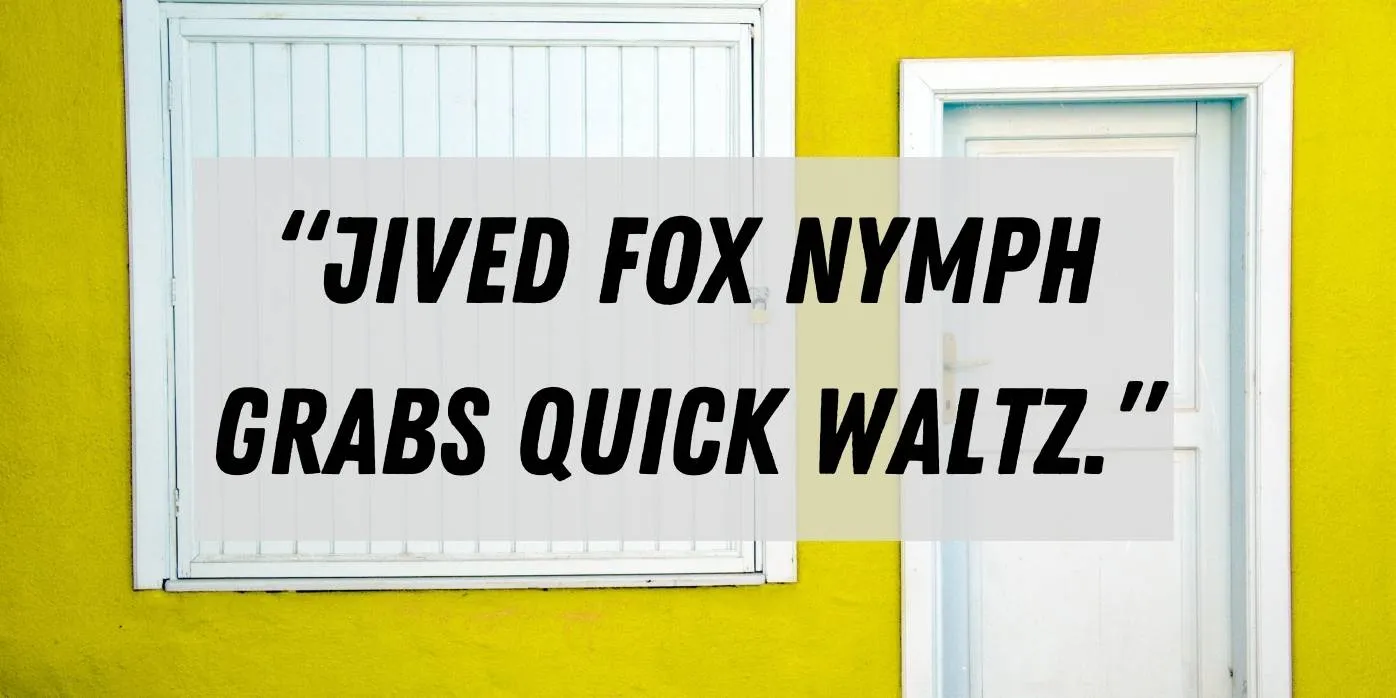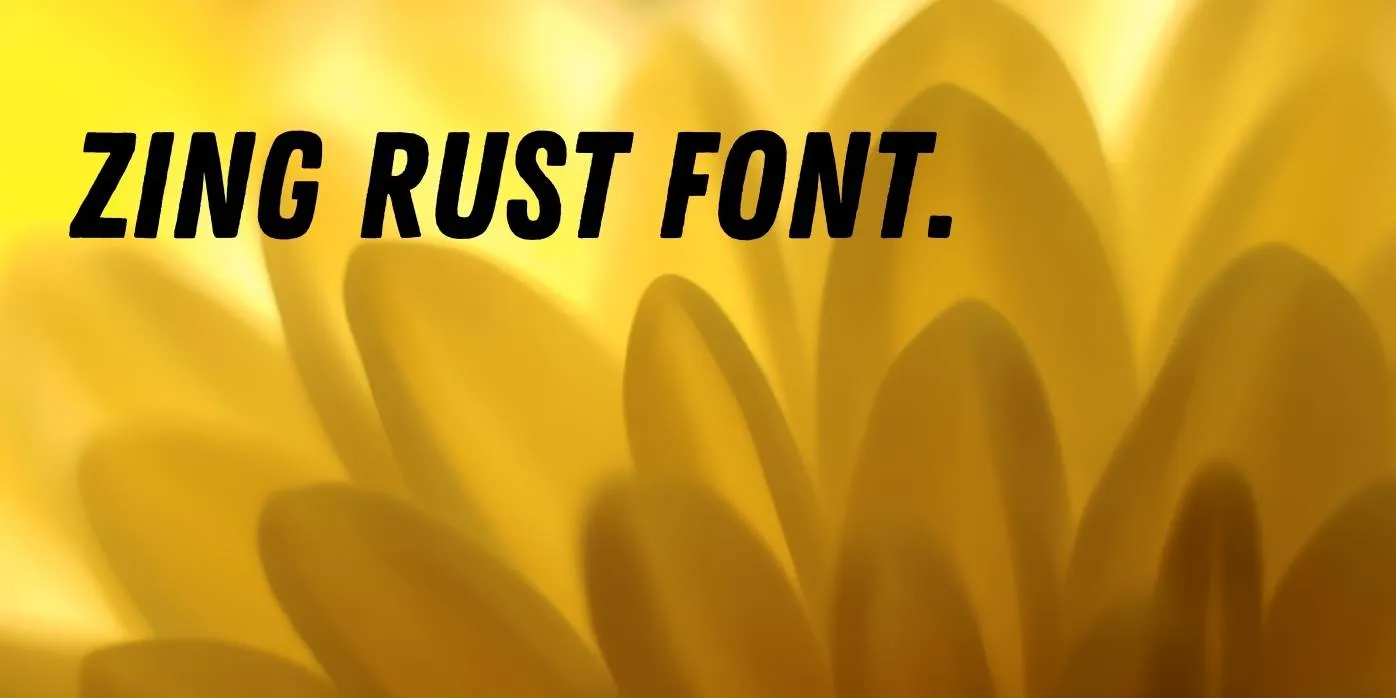
Zing Rust Font
Here we are consulting on the amazing and stylish typeface that was known by the name Zing Rust Font. This classy typeface belonged to the Display font family. It was developed and published by a very famous and popular designer named Svet Simov. This awesome typeface was released in the year 2017 by Fontfabric Foundry.
This cute font family provides soft-look and astonishing features for your designs. This tremendous font is suitable and best for different types of logos, posters of movies, and all of your long paragraphs. This marvelous font is the best and most attractive for your Web. Freshman Font is most commonly used as a similar to this cozy typeface.
This staggering font family cones in six special and tremendous weights. Also, this typeface is available in various different unique and classic Glyphs and washes. Because of these Swashes and Glyphs, this font family gets massive fame in the designing industry. This staggering font supports different international languages.